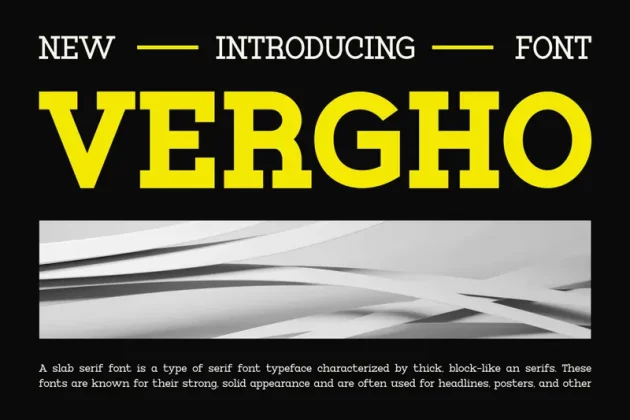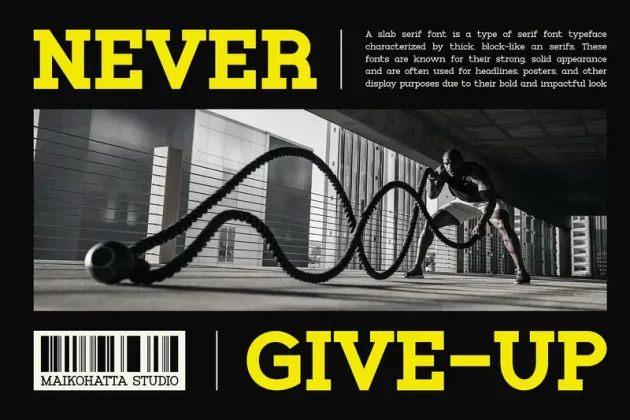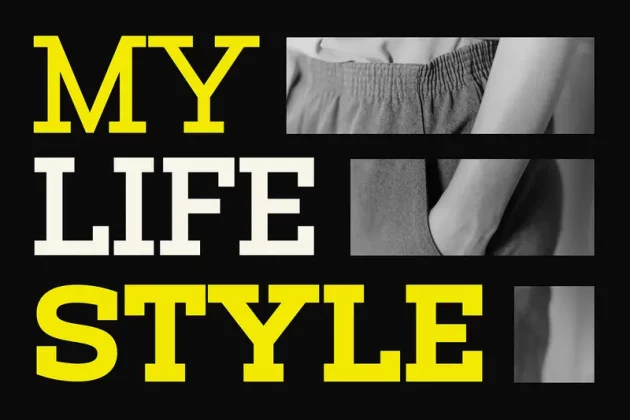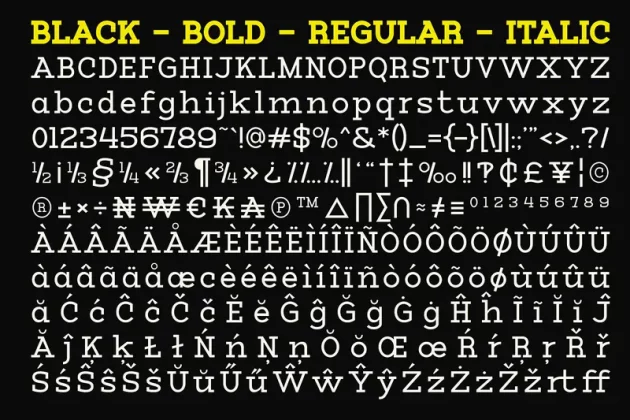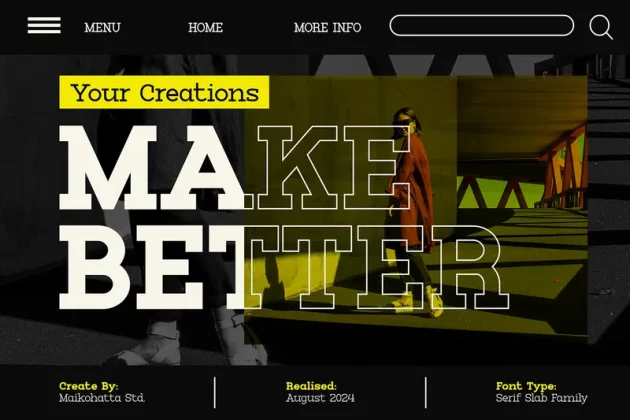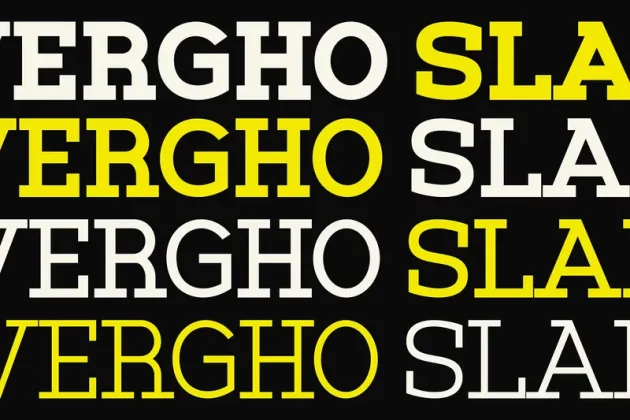
About Vergho – Modern Slab Serif Font
Introducing our new product Vergho – Modern Slab Serif
This font has a series of small or decorative projections called serifs at the ends of its characters. Serifs provide a more formal, modern, and easy-to-read appearance to printed text. Serif fonts are often used in formal documents, books, and print publications because of their good legibility at small text sizes.
- Uppercase
- Lowercase
- Multilingual
- Ligature